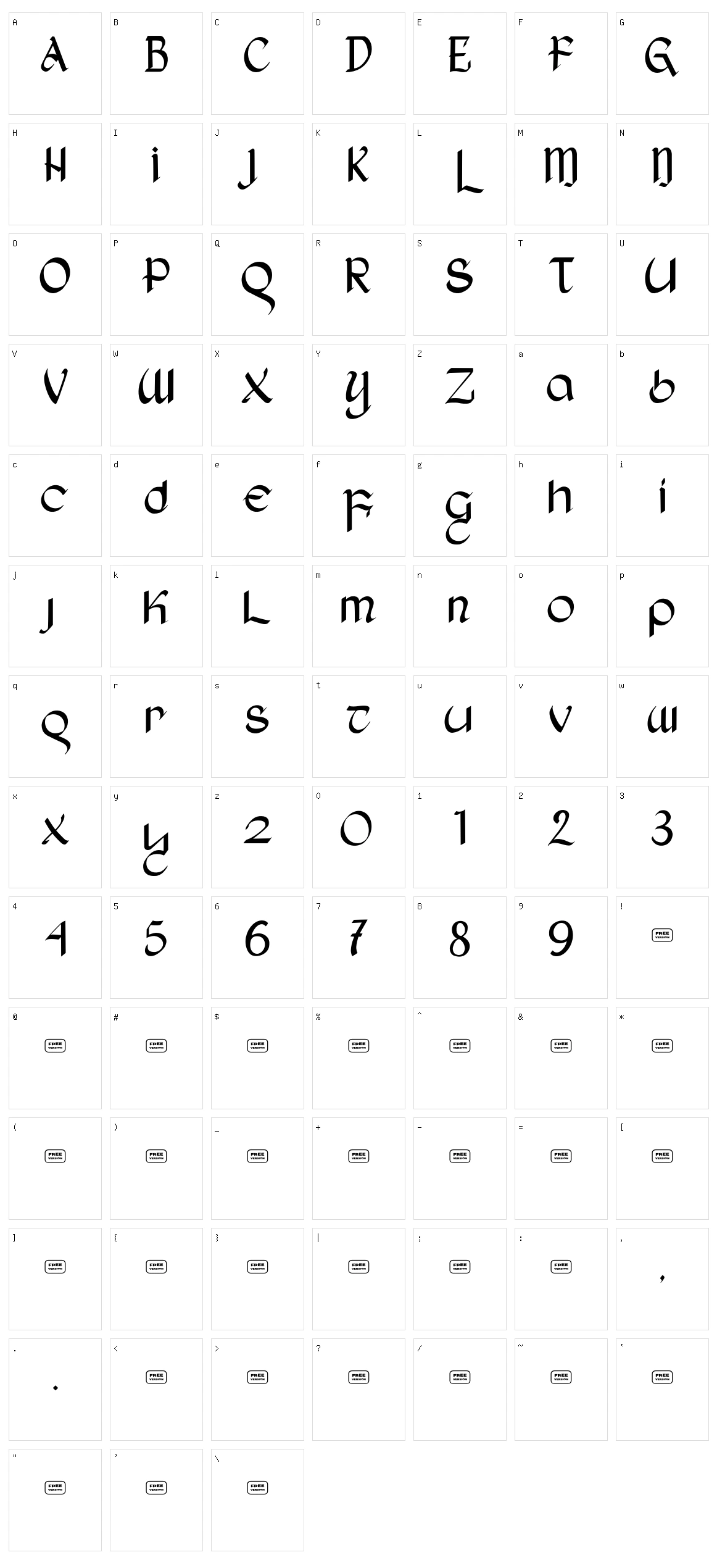
The free font She Dance is carefully designed by Typefactoryco, showcasing a thoughtful balance of creativity and usability and belongs to the Gothic font family. When you download the ZIP file, it contains only 111.74 KB of font files, making it lightweight and quick to download. Please review the license details below to understand permitted usage and distribution rights. If license information is not available, we recommend using this font for personal projects only or contacting the author directly for commercial usage permissions.